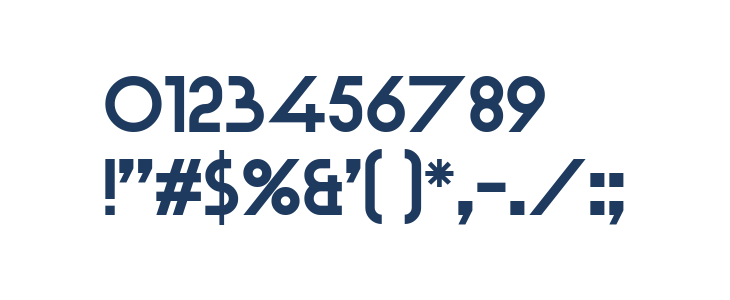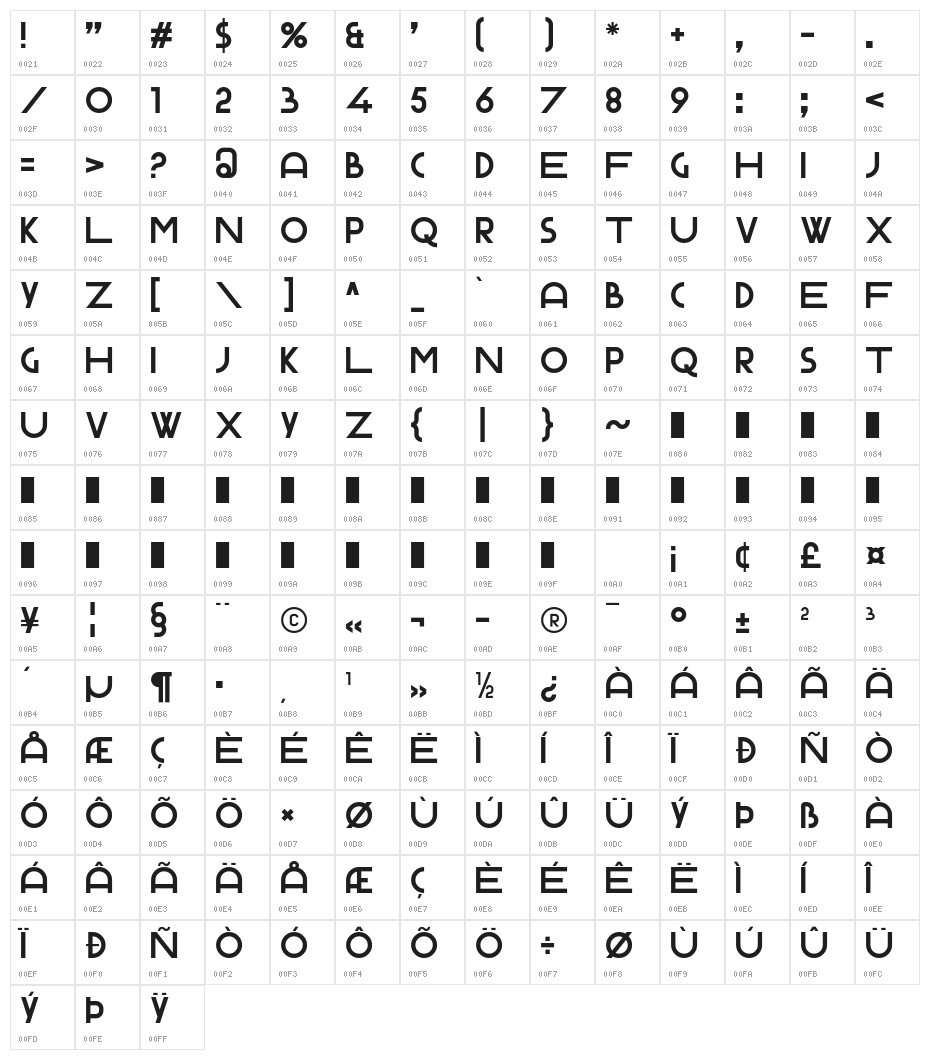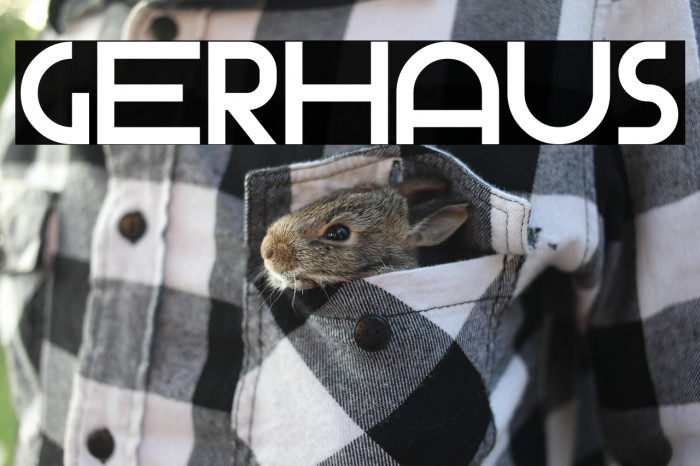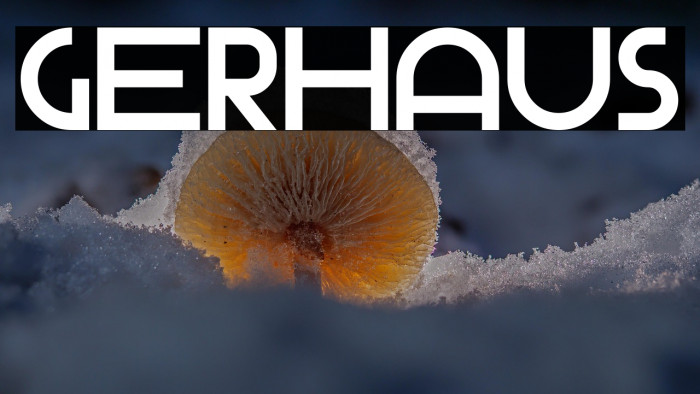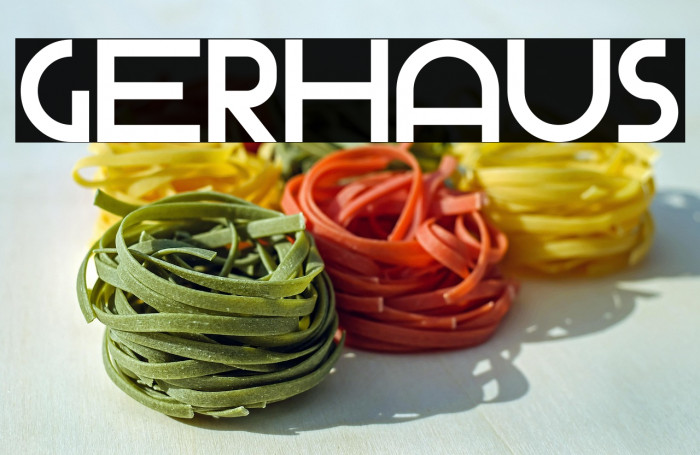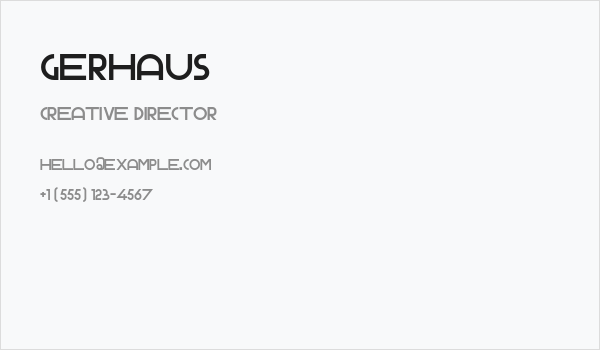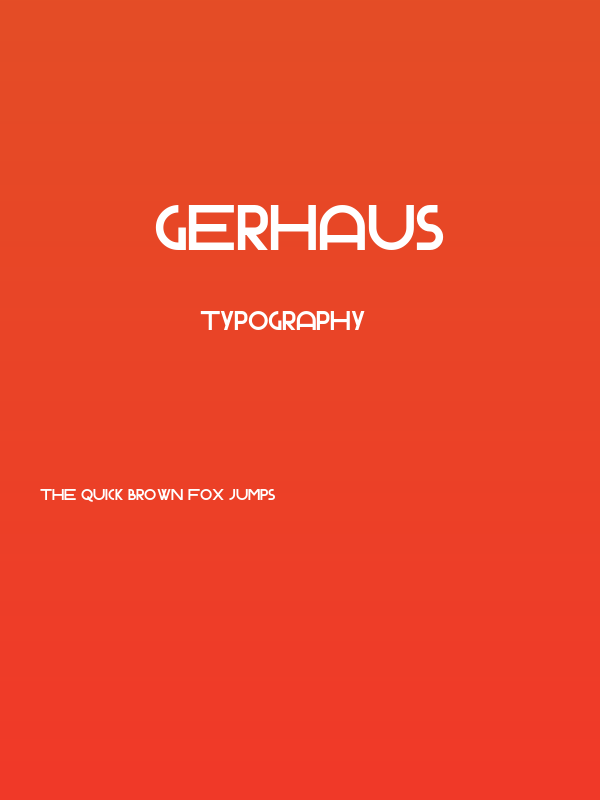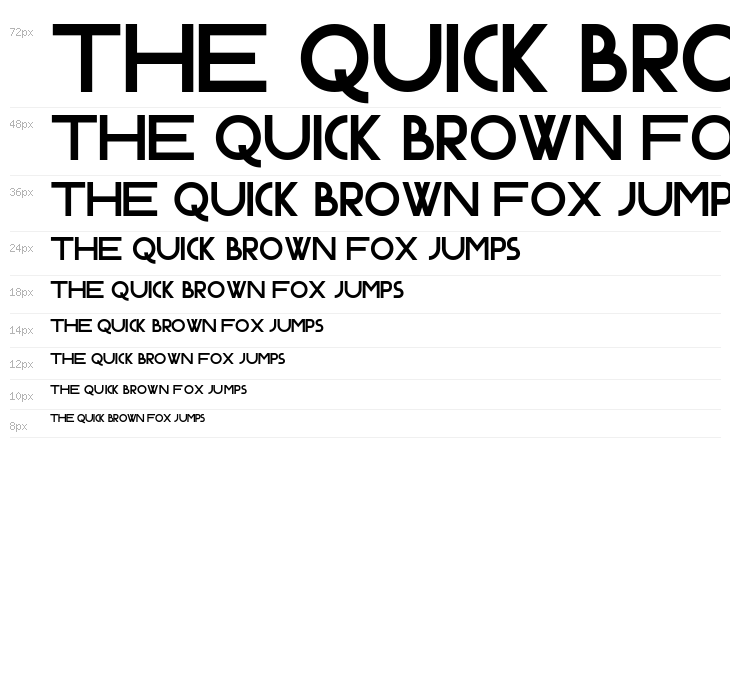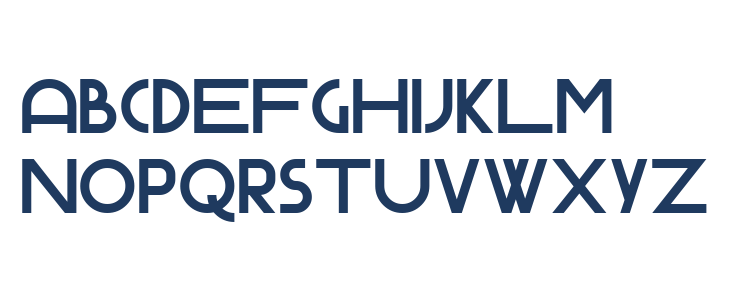
Gerhaus Font
Gerhaus Description
This font features a geometric and modern design, characterized by clean lines and a bold presence. The uppercase and lowercase letters maintain a consistent width, creating a uniform appearance. The numerals are distinct and easy to read, with a slightly futuristic touch. Special characters are well-integrated, enhancing the font's versatility. The overall style is sleek and contemporary, making it suitable for various design applications.
| Proposed Projects | Ideal for branding, advertising, posters, and digital media projects that require a modern and bold aesthetic. |